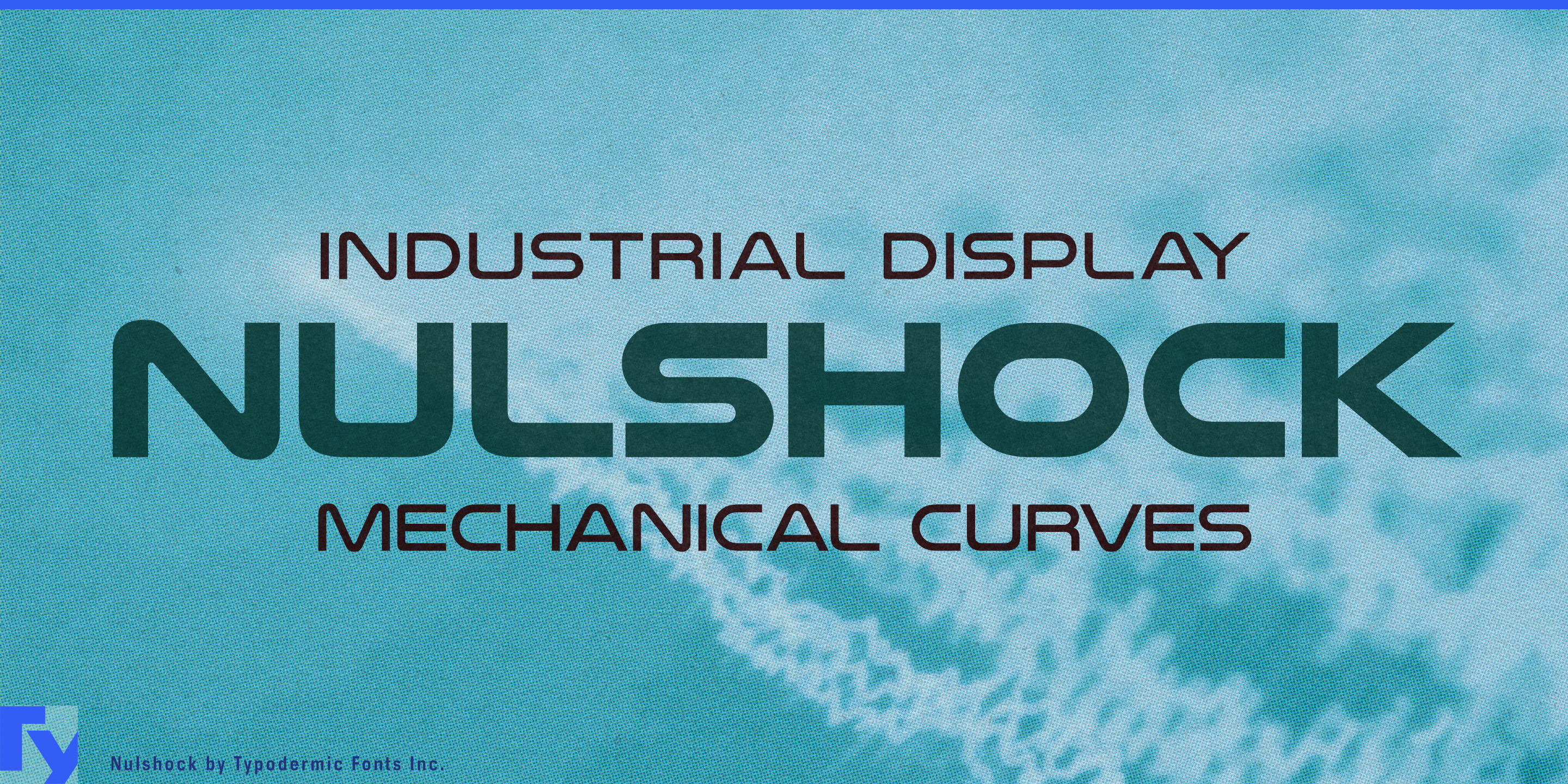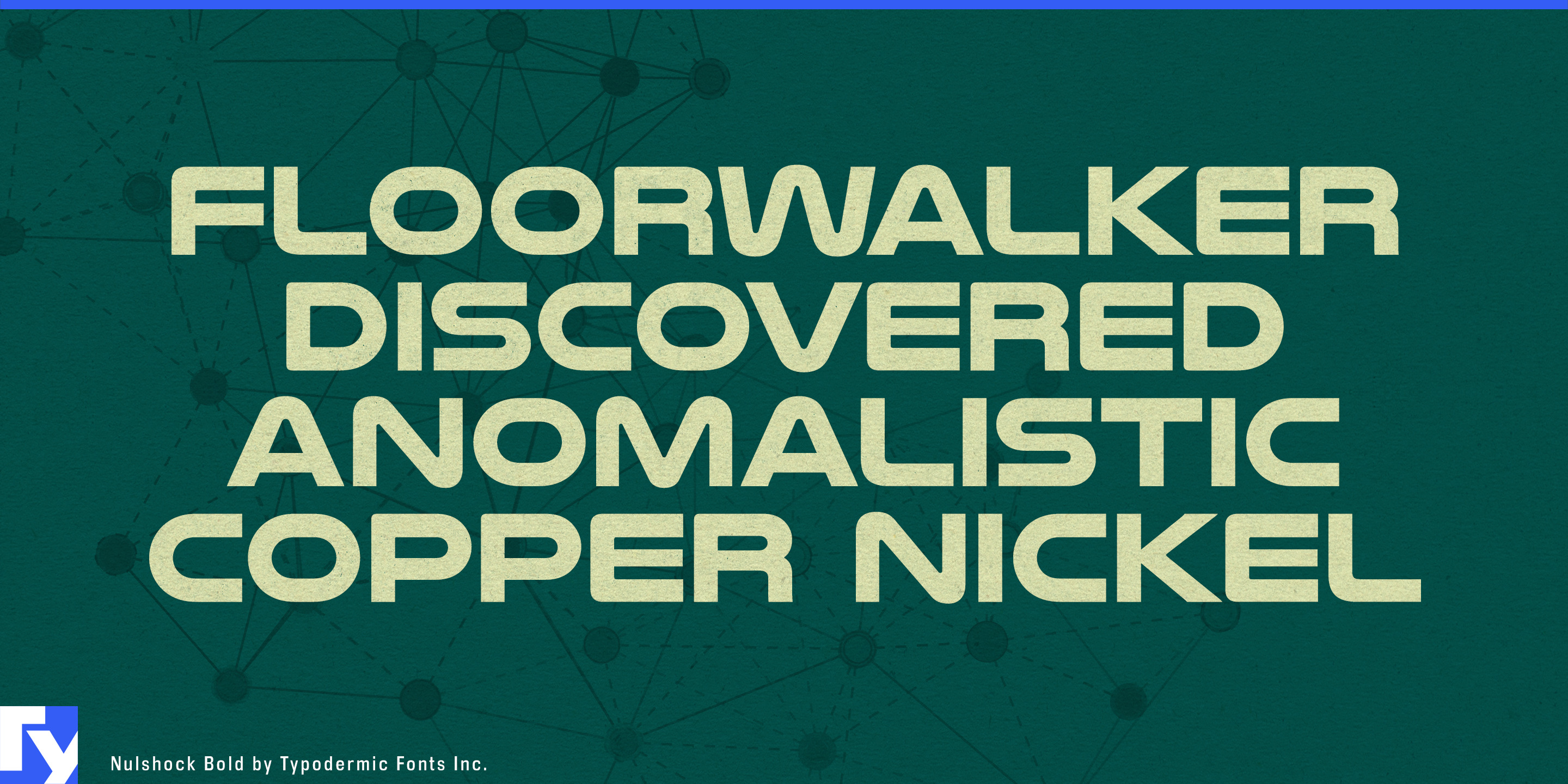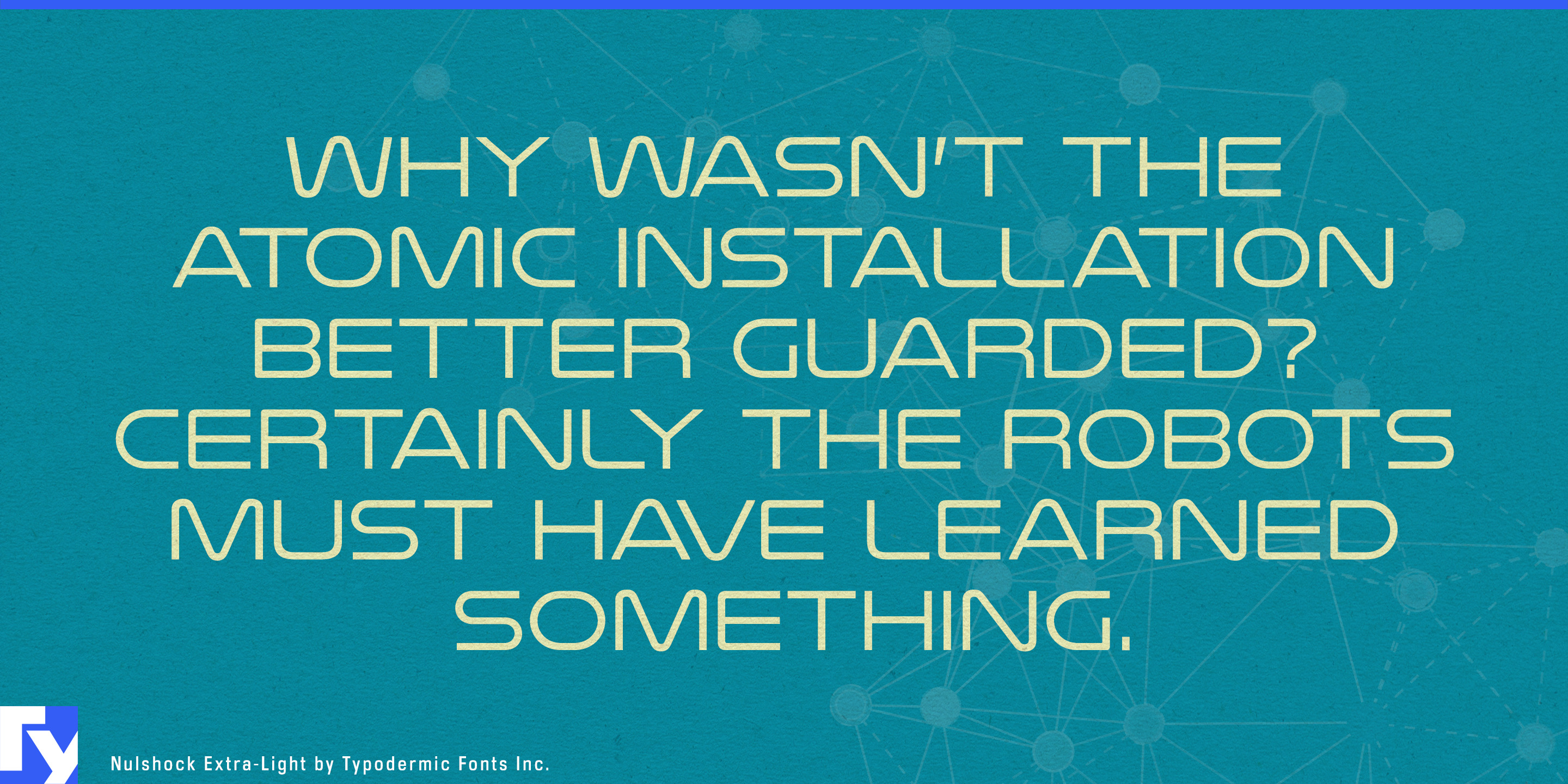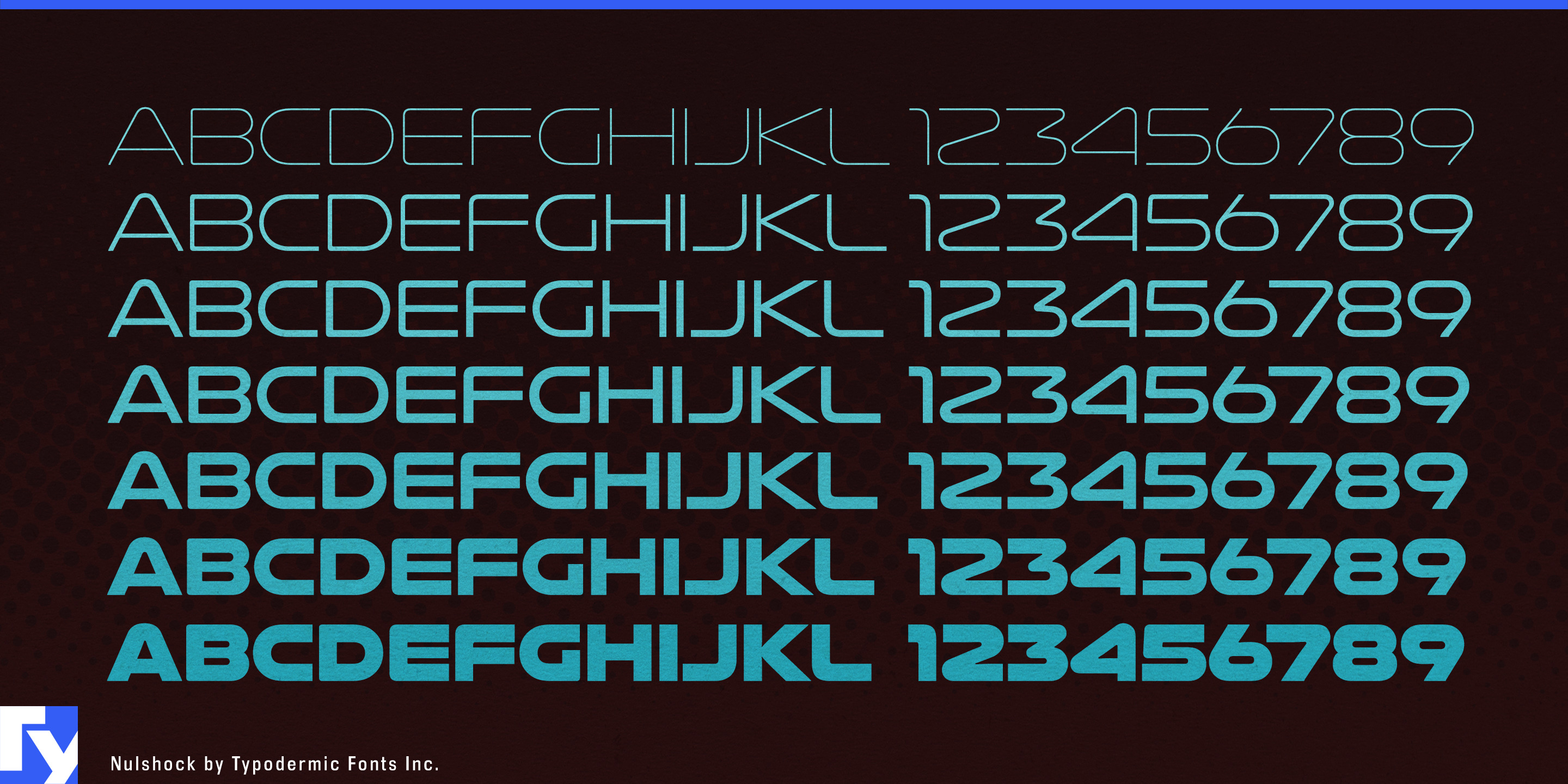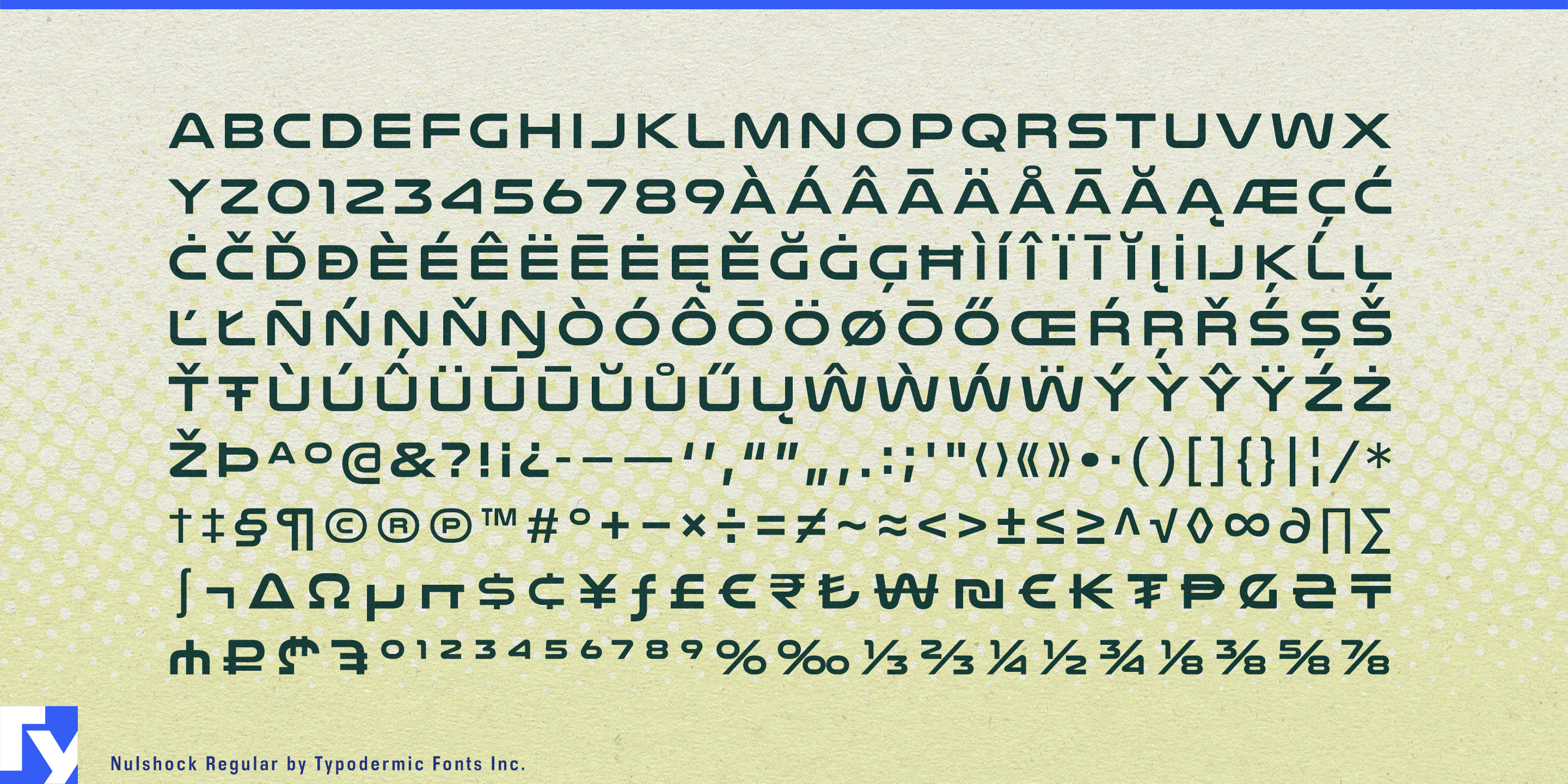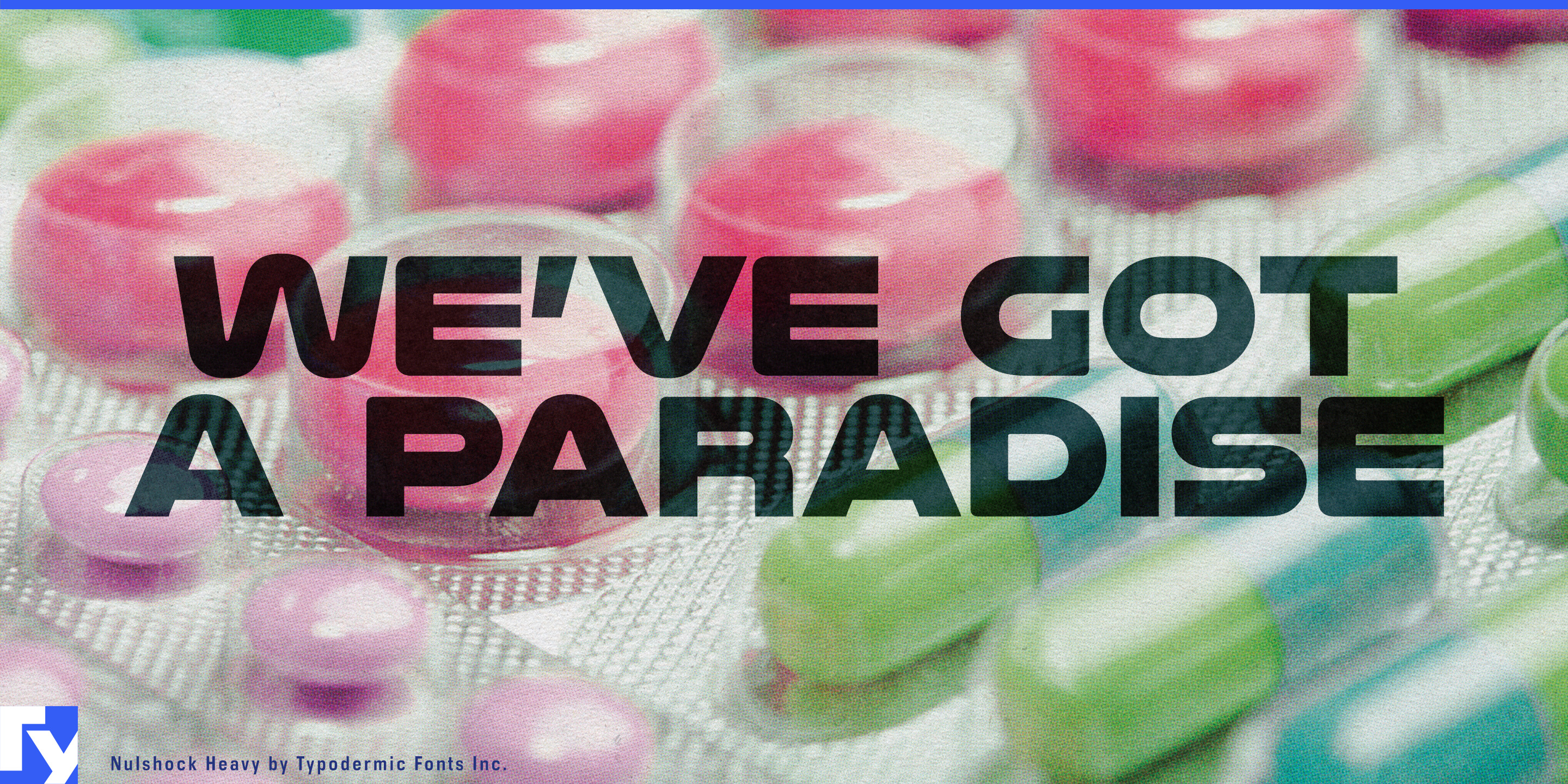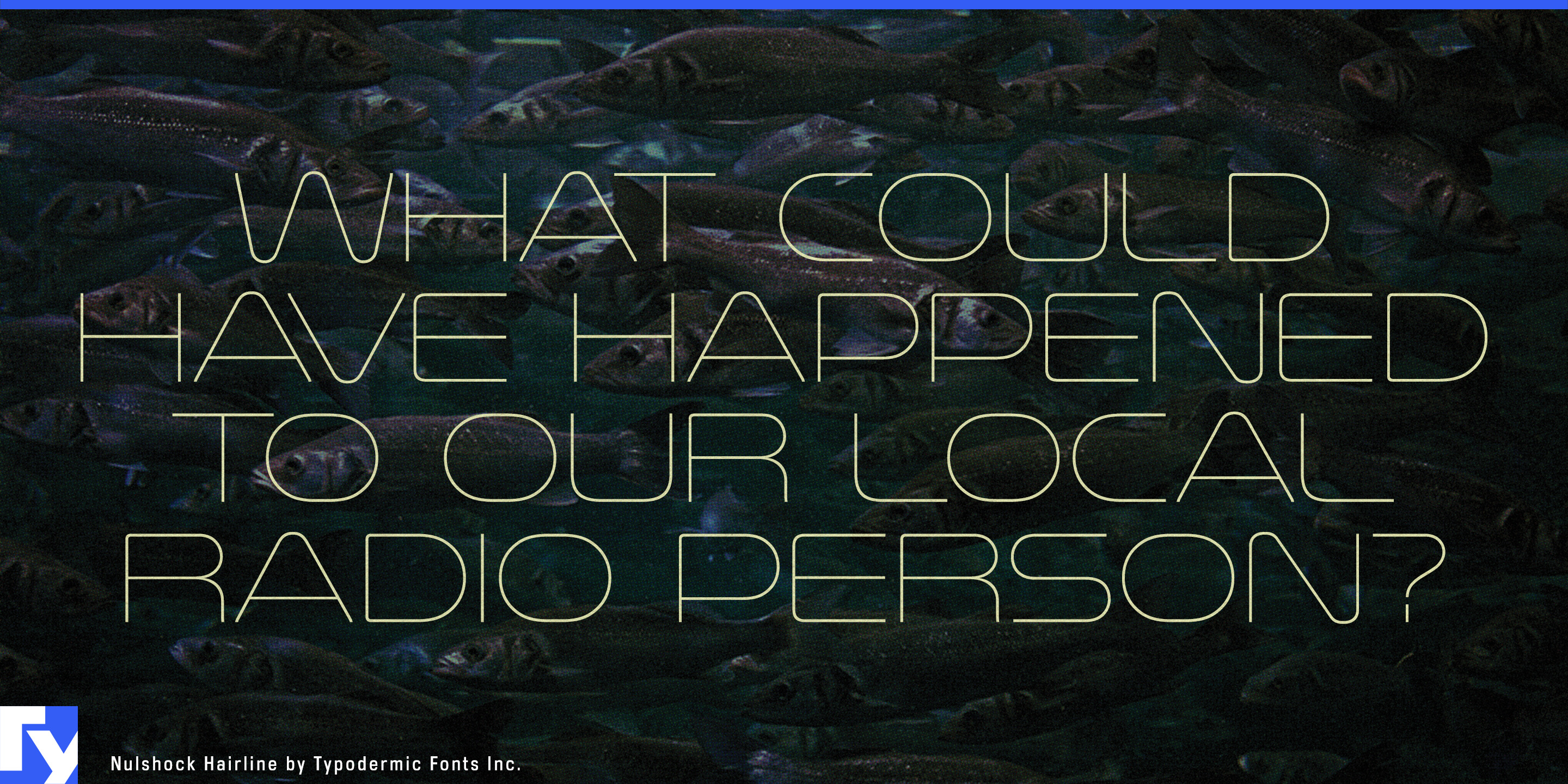
Nulshock
Nulshock is an all-caps type family built for names, models, systems, and controls. Its broad geometric forms and aerodynamic curves give short technical language a polished engineered presence, while seven weights and matching italics provide enough hierarchy to build an entire product identity without introducing lowercase. For many of the jobs Nulshock does best, lowercase would simply get in the way.
The original imaginary application was a guitar effects pedal, and electronic music hardware remains a natural home for it. Guitar pedals, synthesizers, Eurorack modules, drum machines, audio interfaces, MIDI controllers, DJ hardware, and rack effects all depend on product names, mode labels, control groups, model numbers, and abbreviated functions. A heavy Nulshock can establish the model name while lighter weights handle RATE, DEPTH, INPUT, OUTPUT, or MK II without leaving the same visual language.
That logic extends naturally to contemporary high-tech products. Drones, robotics equipment, specialist electronics, performance hardware, computer peripherals, charging systems, and technical sports gear often organize themselves around product families and model designations. Nulshock is particularly useful for related names such as AXIOM, AXIOM X2, and AXIOM PRO, where typography has to make the relationship clear before the customer reaches the specification sheet.
Defence and aerospace technology offer an even more concentrated version of the same problem. Communications equipment, navigation hardware, autonomous systems, training simulators, field electronics, aerospace components, control consoles, and equipment cases rely heavily on uppercase names, acronyms, subsystem labels, and numbered variants. Nulshock can give FIELD COMMS, GROUND CONTROL, NAV SYSTEM 02, or MTR-6 the character of newly manufactured technology without resorting to military stencils, distressed surfaces, or historical references.
The same qualities suit technology companies whose identities revolve around engineered products. Robotics firms, electronics manufacturers, aerospace suppliers, semiconductor companies, audio-technology brands, and specialist engineering businesses can use Nulshock for wordmarks and product families where a conventional corporate sans would reveal too little about what the company actually makes. Its geometry is distinctive without forcing every word into a science-fiction costume.
Performance technology provides another useful setting. Sim-racing hardware, cycling electronics, motorsport components, FPV drone equipment, telemetry products, and other devices sold through specifications and model families can use Nulshock for product names and technical callouts. The upright styles feel stable and engineered; the italics introduce movement when the application calls for it.
Nulshock is deliberately all caps, and that focus is part of its usefulness. It is made for wordmarks, model names, series designations, control labels, feature names, package callouts, and short technical headings rather than ordinary prose. It is an identity system for things with model numbers.